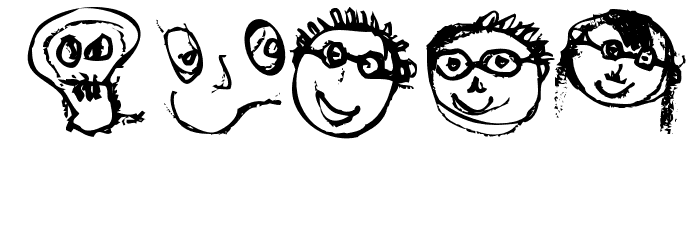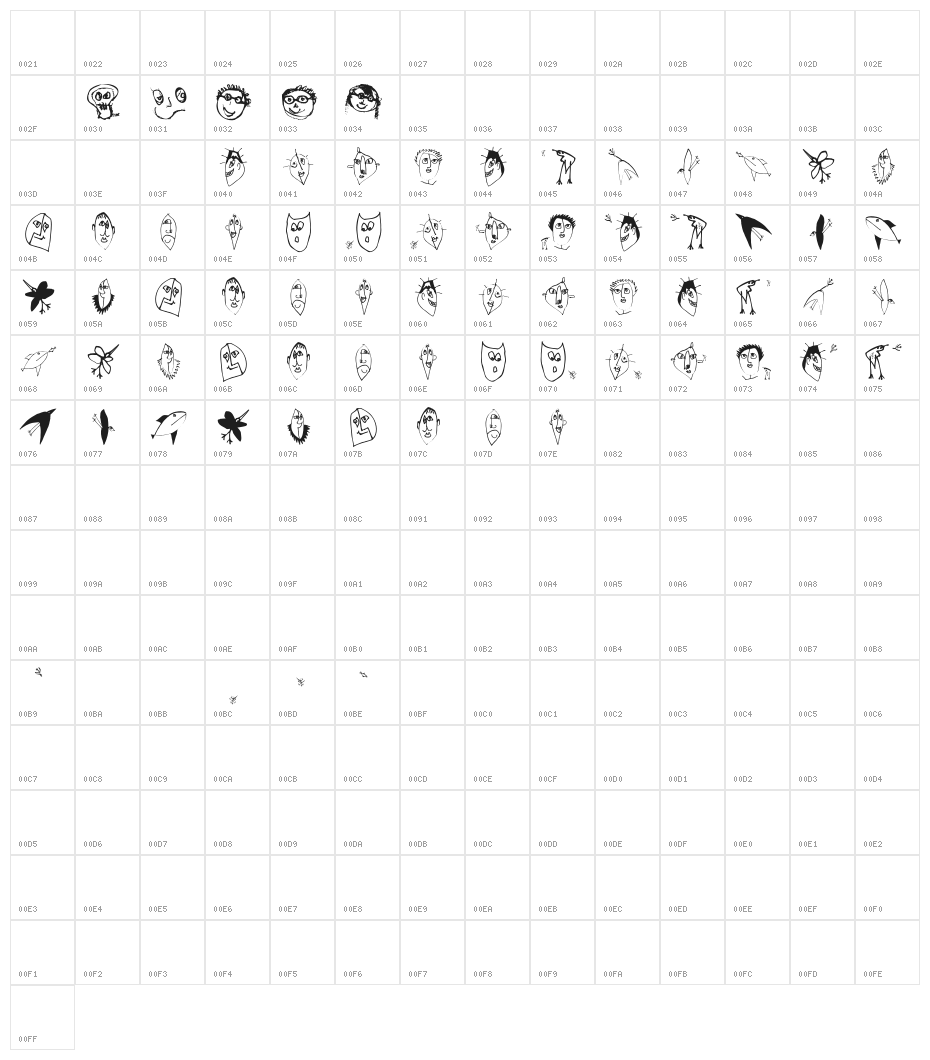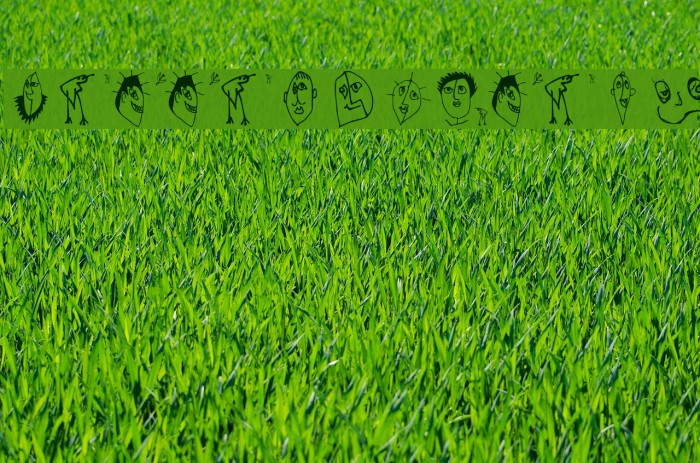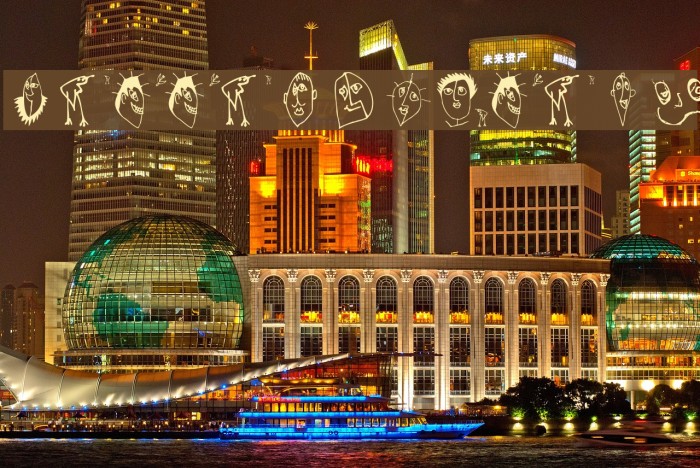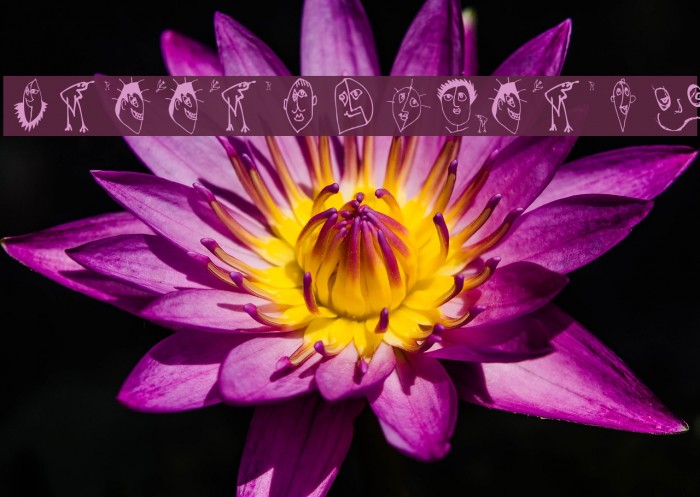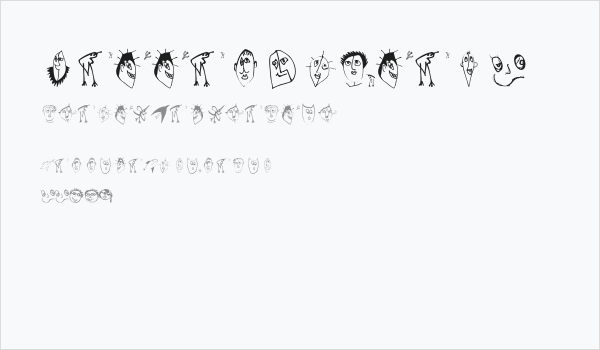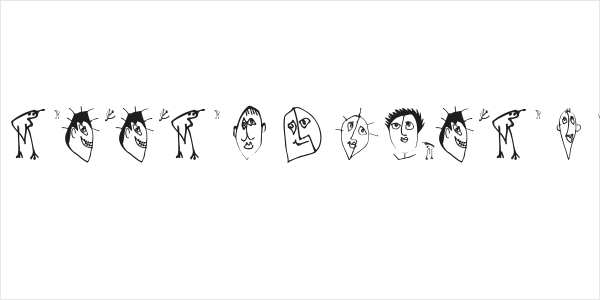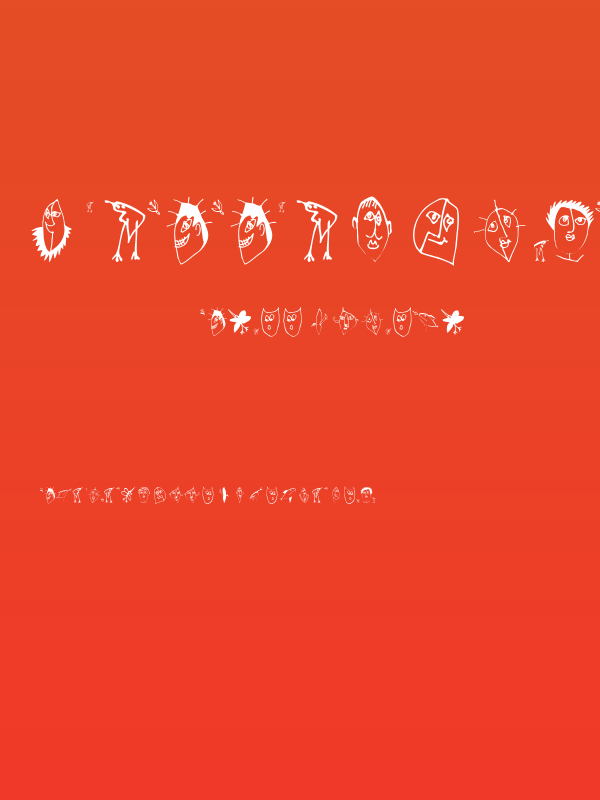
This font is a whimsical and artistic collection of hand-drawn characters, each resembling a unique doodle or sketch. The characters are highly stylized, featuring exaggerated facial expressions and abstract forms. The overall design is playful and imaginative, with each letter and symbol appearing as a distinct piece of art. The strokes are varied, with some lines being bold and others more delicate, adding to the dynamic and lively feel of the font. This font is not meant for traditional text but rather for creative projects where a touch of humor and individuality is desired.
| Overall Style | Artistic, Whimsical |
| Use Case | Creative projects, Artistic displays |
| Proposed Projects | Ideal for children's books, creative posters, artistic branding, and unique invitations. |